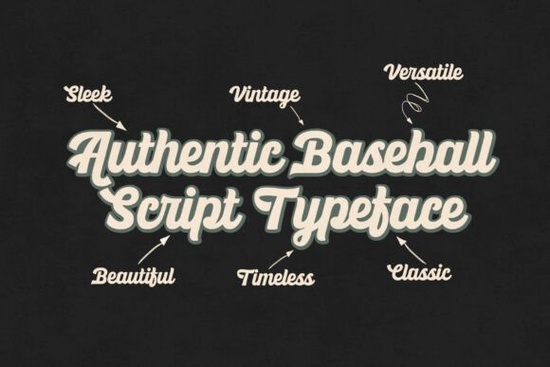
Ballpark Beauty Font is a standout choice for anyone looking to infuse their designs with the nostalgic energy of classic baseball. Whether you're creating logos, signage, or merchandise, this script font brings a unique blend of vintage charm and bold style to your work. Its two dynamic styles Regular and Extruded offer flexibility, making it easy to achieve both elegant and dimensional effects without extra effort.
If you're a designer or small business owner aiming to capture the spirit of sports or retro aesthetics, Ballpark Beauty can help you stand out. The font’s flowing curves and confident strokes make it ideal for anything from team branding to print-on-demand products. Its versatility ensures it fits into a wide range of creative projects, from event posters to apparel designs.
What Makes Ballpark Beauty Unique?
Ballpark Beauty isn’t just another script font it’s a tribute to the visual language of baseball. The Regular style provides smooth, flowing lettering perfect for clean, elegant designs. Meanwhile, the Extruded version adds depth and dimension, allowing you to create 3D effects with ease. This makes it a powerful tool for designers who want to add visual impact without complicated techniques.
The font’s design captures the movement and energy of athletic lettering. Every stroke feels intentional, evoking the excitement of a stadium crowd or the pride of a team jersey. Whether you’re working on a retro-themed project or a modern sports campaign, Ballpark Beauty adapts well to different styles and needs.
How to Use Ballpark Beauty in Your Projects
One of the best things about Ballpark Beauty is how easy it is to integrate into your workflow. For example, if you're designing packaging or promotional materials, the Extruded style can give your text a立体 look that grabs attention. On the other hand, the Regular style works well for headings, banners, or any design that benefits from a more refined appearance.
Here are some common use cases:
- Team logos and branding – Add a vintage feel to your team identity with bold, expressive lettering.
- Retro signage – Create eye-catching signs for events, shops, or community spaces.
- Apparel and merchandise – Use the font on t-shirts, hats, or custom prints for a nostalgic touch.
- Sports posters and flyers – Make your event promotions stand out with dynamic typography.
Its adaptability means it can be used across multiple platforms, including digital and print media. You can also pair it with other fonts for contrast, such as a clean sans-serif for body text or a bold display font for emphasis.
When choosing a font, consider the tone and purpose of your project. Ballpark Beauty is especially suited for designs that aim to evoke nostalgia, energy, or a connection to sports culture. It’s a great fit for small businesses, hobbyists, and creatives who want to add personality to their work.
As you experiment with Ballpark Beauty, keep in mind that the right pairing and spacing can make a big difference in how your design looks. Don’t hesitate to test different layouts and styles to see what works best for your needs.
Whether you're a seasoned designer or just starting out, Ballpark Beauty offers a fresh and functional way to bring baseball-inspired flair into your work. With its dual styles and versatile applications, it’s a valuable addition to any font library.
Before finalizing your project, take a moment to review your design for consistency and clarity. Make sure the font complements other elements and conveys the message you want to share.